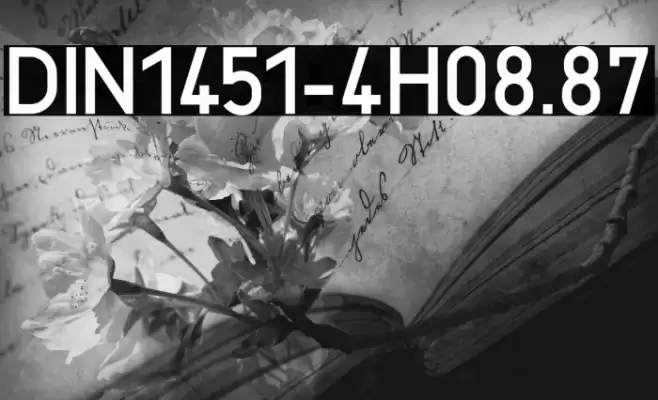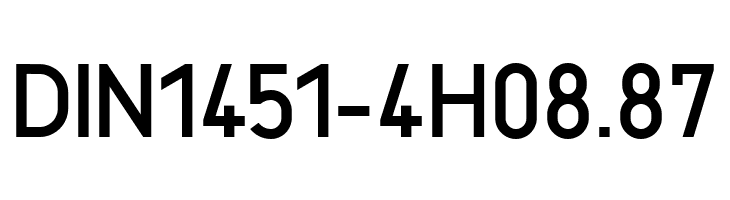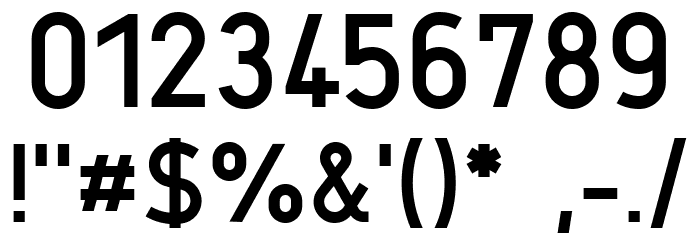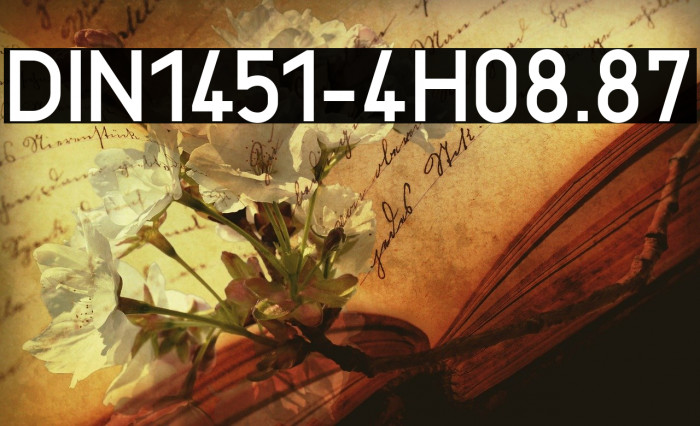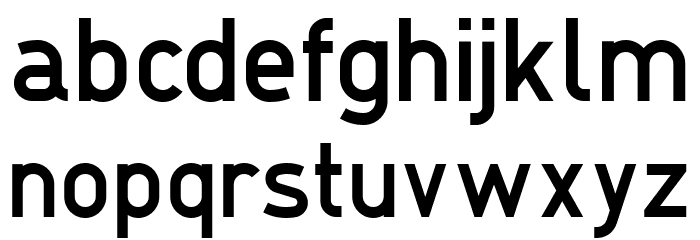
This typeface features a clean, geometric design with a modern aesthetic. The characters are uniform and well-proportioned, offering excellent legibility. The sans-serif style contributes to its straightforward and functional appearance, making it suitable for a variety of applications. The uppercase and lowercase letters maintain a consistent stroke width, enhancing readability. The numerals are clear and distinct, while the special characters are well-integrated, ensuring versatility in usage.
A clean, geometric sans-serif typeface with excellent legibility from Uncategorized fonts.
- Proposed Projects: Ideal for signage, technical documentation, user interfaces, and branding materials.